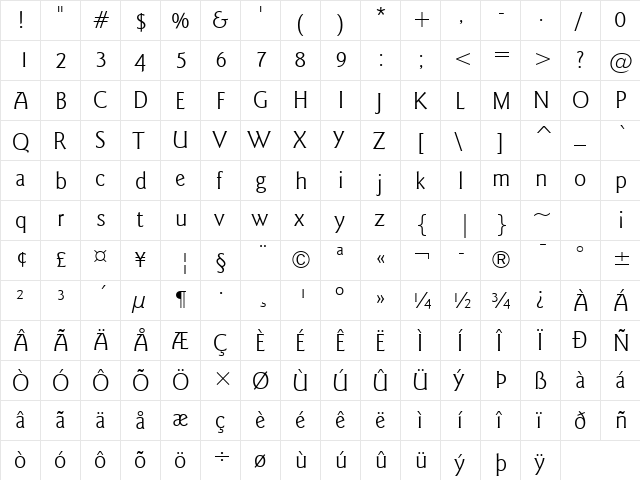
GoudySans Lt BT Light Font Preview
GoudySans Lt BT Light
Design Context for GoudySans Lt BT Typeface
GoudySans Lt BT is a composed and adaptable typeface that performs quietly and consistently across a wide range of design contexts. The delicate stroke weight brings airiness and refinement to layouts.